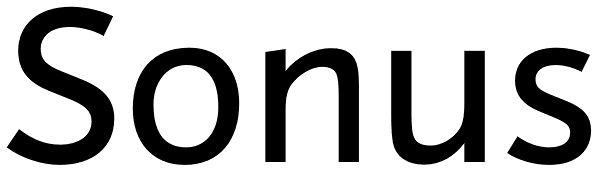
Sonus
Sonus – a new monoline family with dynamic-flow drive. Influenced by early English sans serifs - Powerful and energetic but with some classical features. Its firm structure makes it great for text and demonstrates its lively linearity in displays...